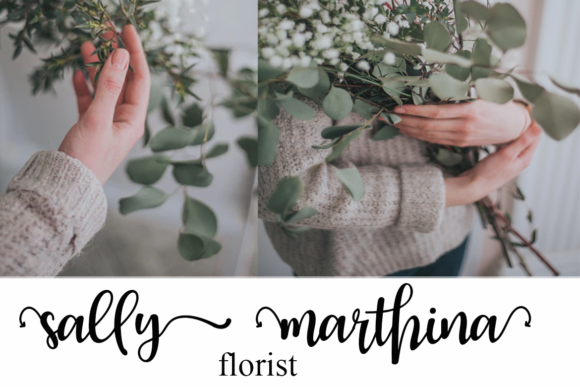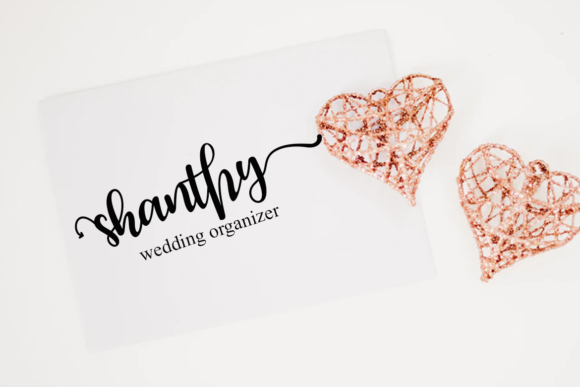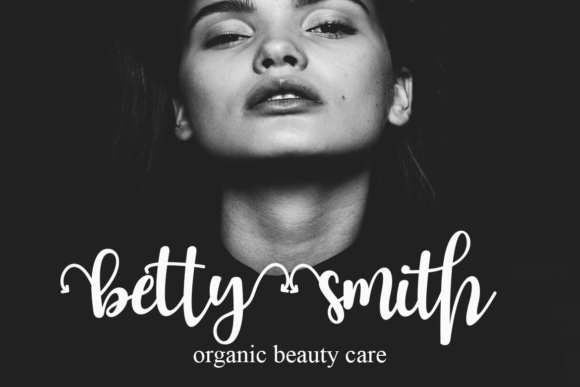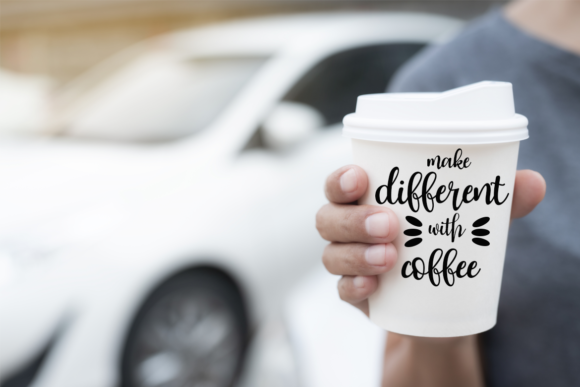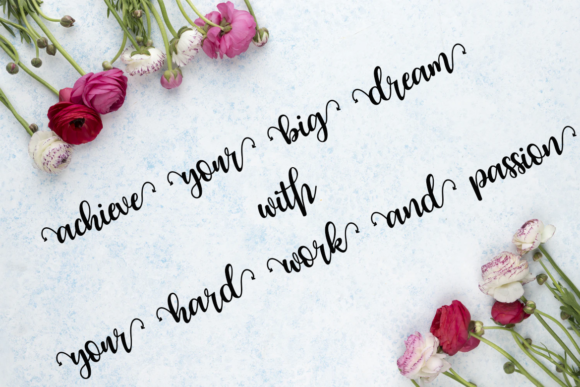
Introduction to Hunky Dory Font
Have you ever been in the midst of a creative project, and you’re searching for that perfect finishing touch? The one thing that can elevate your design from good to great? For designers, finding the right font can be the difference between a project that truly shines and one that just gets lost in the noise. That’s where the Hunky Dory Font comes in – a beautiful, elegant script font that’s designed to make your projects truly stand out.
With its high-quality design and unique arrow swashes, the Hunky Dory Font is the perfect addition to any creative project. Whether you’re working on a logo, a website, or a social media campaign, this font is sure to bring a touch of sophistication and style to your design. And the best part? It’s available for free download, making it a valuable resource for designers of all levels.
So why settle for a bland, generic font when you can add a little extra flair to your design with the Hunky Dory Font? With its transparent background and PUA encoded features, you’ll have access to a wide range of glyphs and swashes to help you create a truly unique and eye-catching design.
Key Features of Hunky Dory Font
- The Hunky Dory Font is a high-quality, free design resource ideal for creative projects.
- It offers a transparent background, making it perfect for use on various design elements.
- The Hunky Dory Font features a unique, cursive design with a playful and whimsical feel.
- The font is highly customizable, allowing designers to easily resize and adjust the text to suit their needs.
- This font is an excellent addition to any design collection, offering a creative and stylish touch to various design projects.
Honest Review: Hunky Dory Font
I recently stumbled upon the Hunky Dory Font and I must say, it’s a delightful addition to my design arsenal. As a designer, I’m always on the lookout for high-quality fonts that can elevate my creative projects.
The Hunky Dory Font is available for free download, making it an excellent design resource for anyone looking to enhance their visual content. One of the standout features of this font is its transparent background, which allows for seamless integration into any design.
Here are some things that work well with the Hunky Dory Font:
- ✨ Elegant and modern design aesthetic
- ✨ Wide range of application possibilities (digital, print, and more)
- ✨ High-quality graphics that render smoothly
However, I do have some reservations about the font’s limitations:
- ⚠️ Limited character set (not ideal for extensive text-based projects)
- ⚠️ May not be suitable for very small text sizes due to its elaborate design
Overall, I’m quite impressed with the Hunky Dory Font and would recommend it to designers looking for a high-quality, free download. While it may have some limitations, its unique design and transparent background make it a valuable addition to any design resource library.
Tips for Getting the Most Out of Hunky Dory Font
Experiment with layering and combining the font with other design elements to create visually striking compositions. You can also use the font’s transparent background to create intricate designs and patterns.
The Hunky Dory Font is perfect for various design projects, including digital art, graphic design, and creative writing. Its unique design and transparent background make it an ideal choice for designers looking to add a touch of elegance and sophistication to their work.
Can I use the Hunky Dory Font with a transparent background?
Yes, the Hunky Dory Font is designed to work well with a transparent background. This feature is particularly useful for graphic designers who need to create visually appealing designs with subtle background effects. Ensure your design software supports transparent backgrounds and adjust the font settings accordingly.